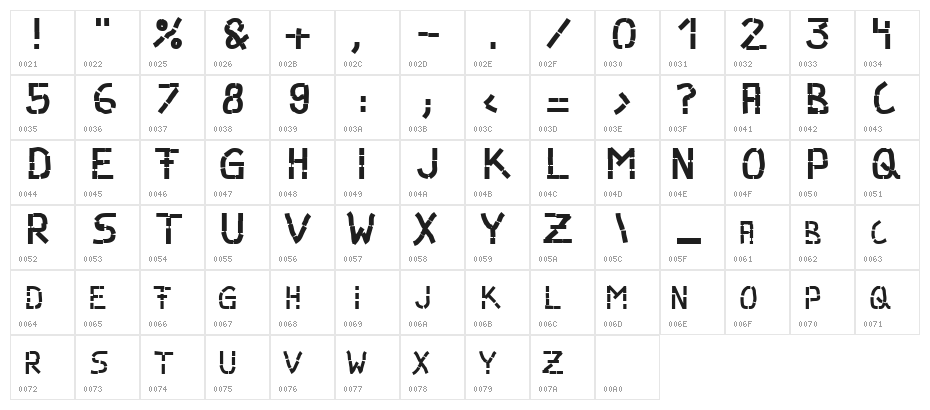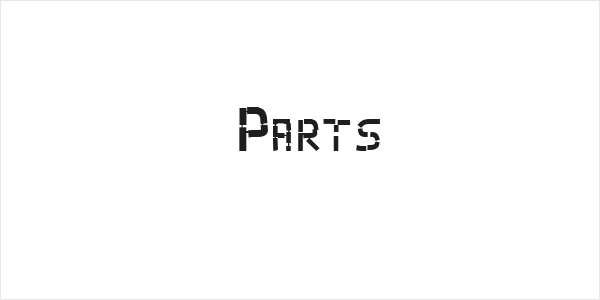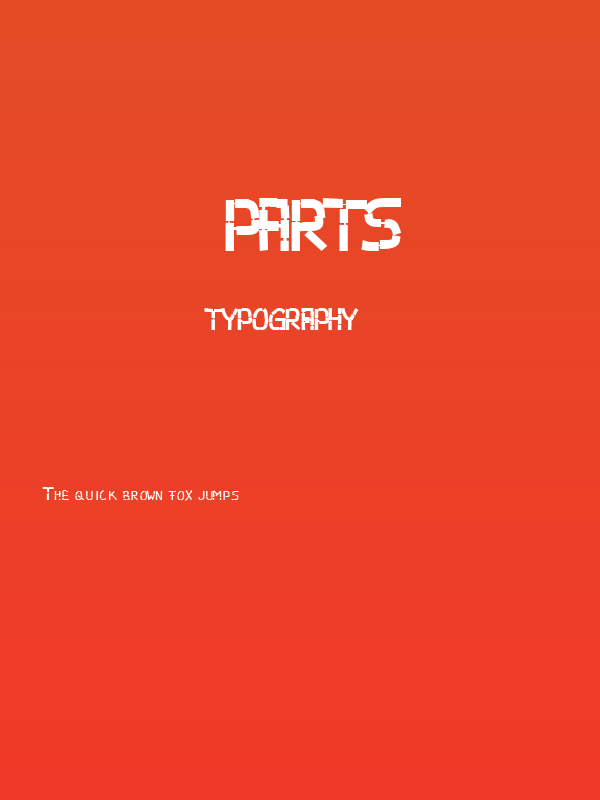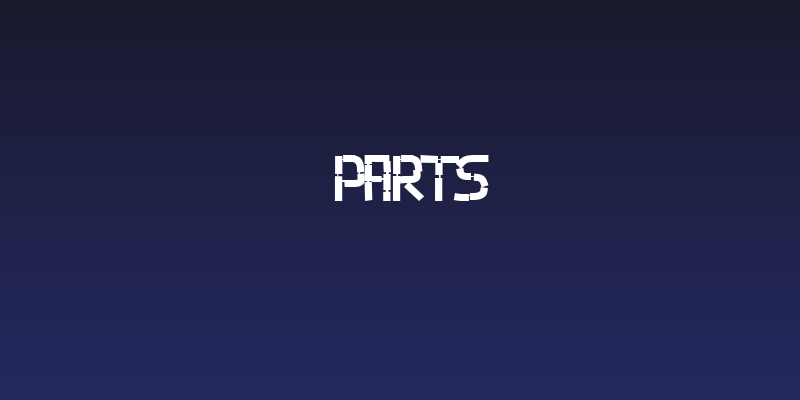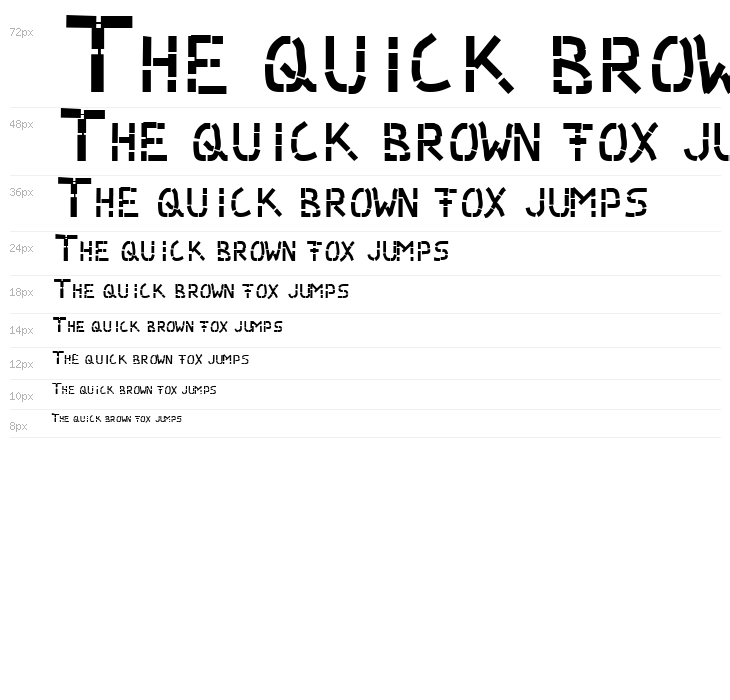
Parts Font
✎ Stencil
Parts Description
This font features a unique, fragmented design where each character appears to be constructed from separate parts, creating a digital and mechanical aesthetic. The uppercase and lowercase letters maintain a consistent style, with sharp angles and a bold presence. The numbers and special characters follow the same fragmented theme, ensuring uniformity across the set. The font's distinct appearance makes it stand out, ideal for projects that require a modern, tech-inspired look. Its bold and blocky nature suggests a strong emphasis on display rather than readability in body text.
| Overall Style | Modern, Digital |
| Proposed Projects | Ideal for tech-themed designs, digital art, posters, and branding that requires a modern, edgy look. |